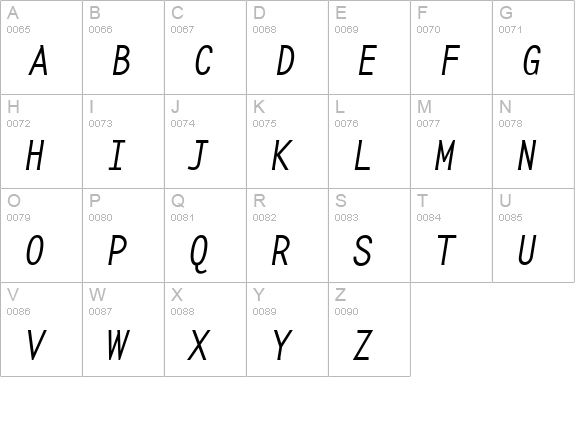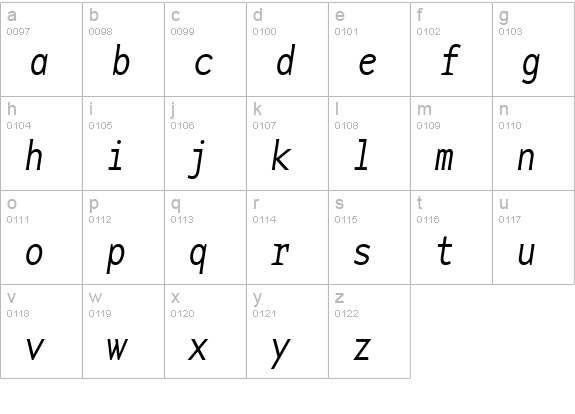
BaseMono-NarrowThin Italic is a distinctive, italic variant in the BaseMono typeface family \xE2\x80\x94 well suited to design and typography projects.
BaseMono-NarrowThin Italic is a sleek and elegant typeface designed for those seeking a modern and refined look. The thin, narrow letterforms convey a sense of sophistication and style, making it perfect for use in a variety of design projects. The italicized slant adds a touch of flair and dynamism to the text, making it stand out while maintaining readability. This font is ideal for creating a contemporary and professional aesthetic in branding, editorial design, and digital interfaces. Whether you're crafting a sleek website or designing a minimalist logo, BaseMono-NarrowThin Italic is sure to elevate your project to the next level. Best of all, BaseMono-NarrowThin Italic is available as a free download on FontsMarket.com, allowing you to access this high-quality typeface without any cost. Don't miss out on the opportunity to add this versatile font to your design toolkit today!